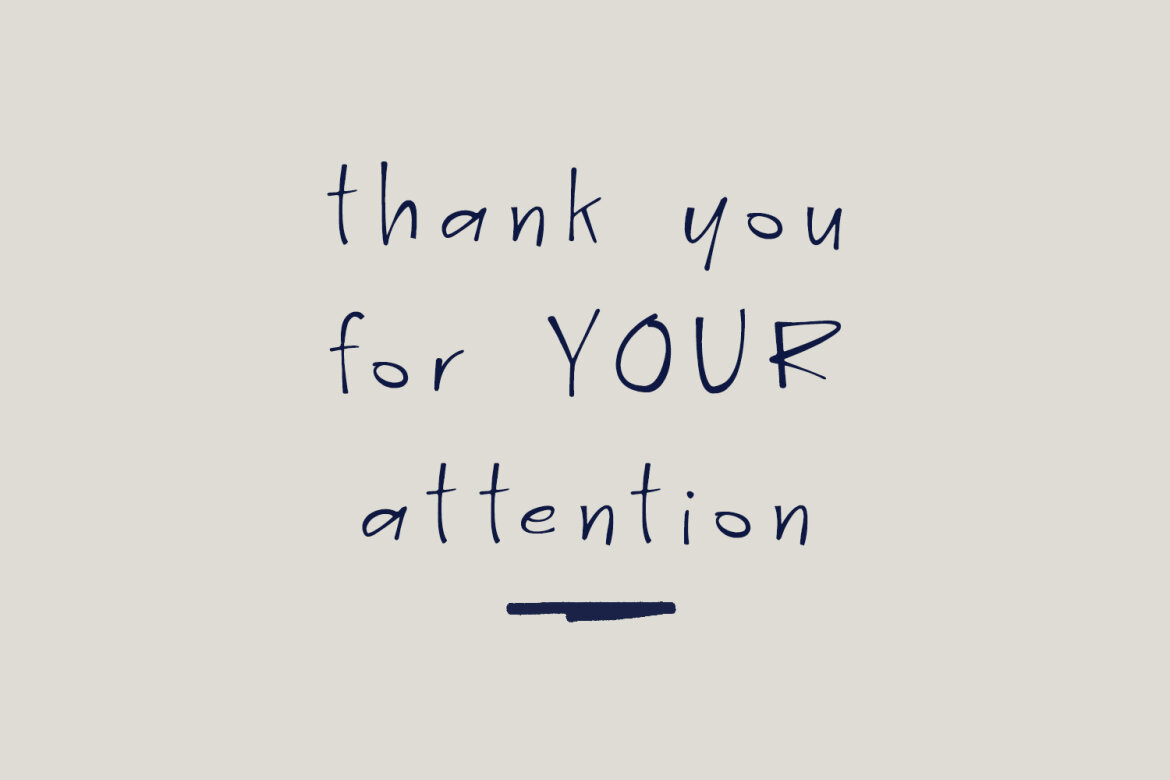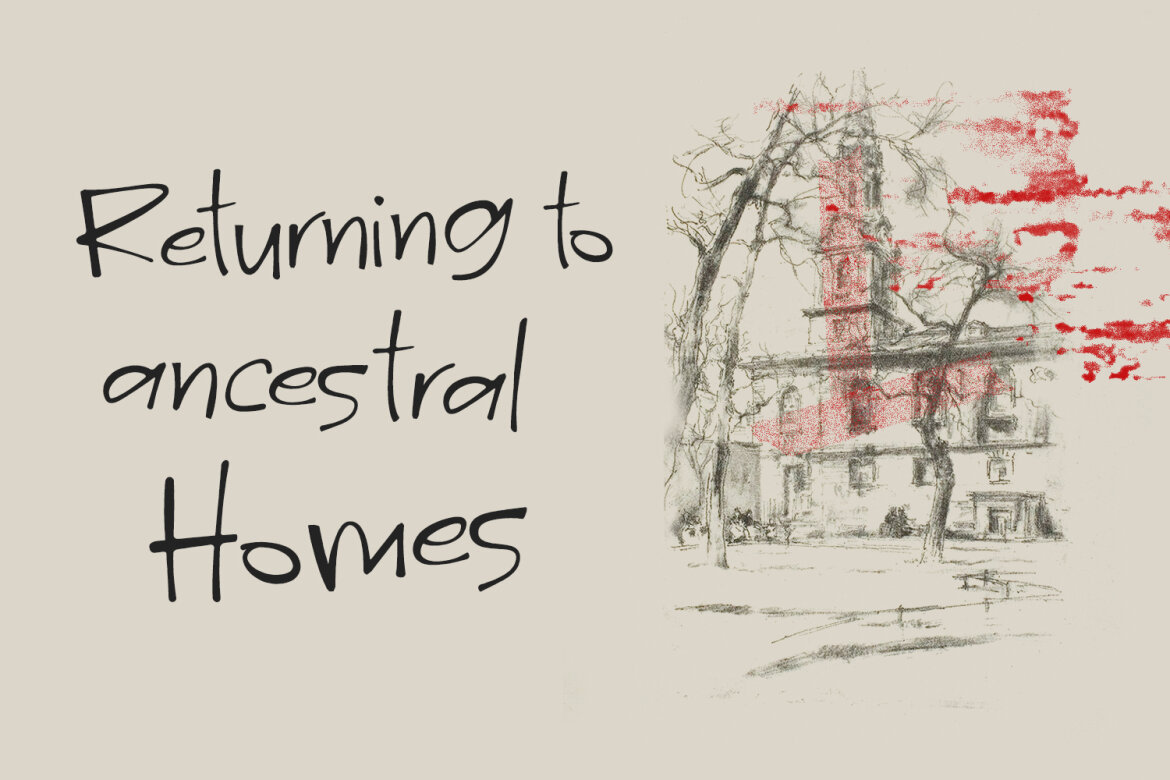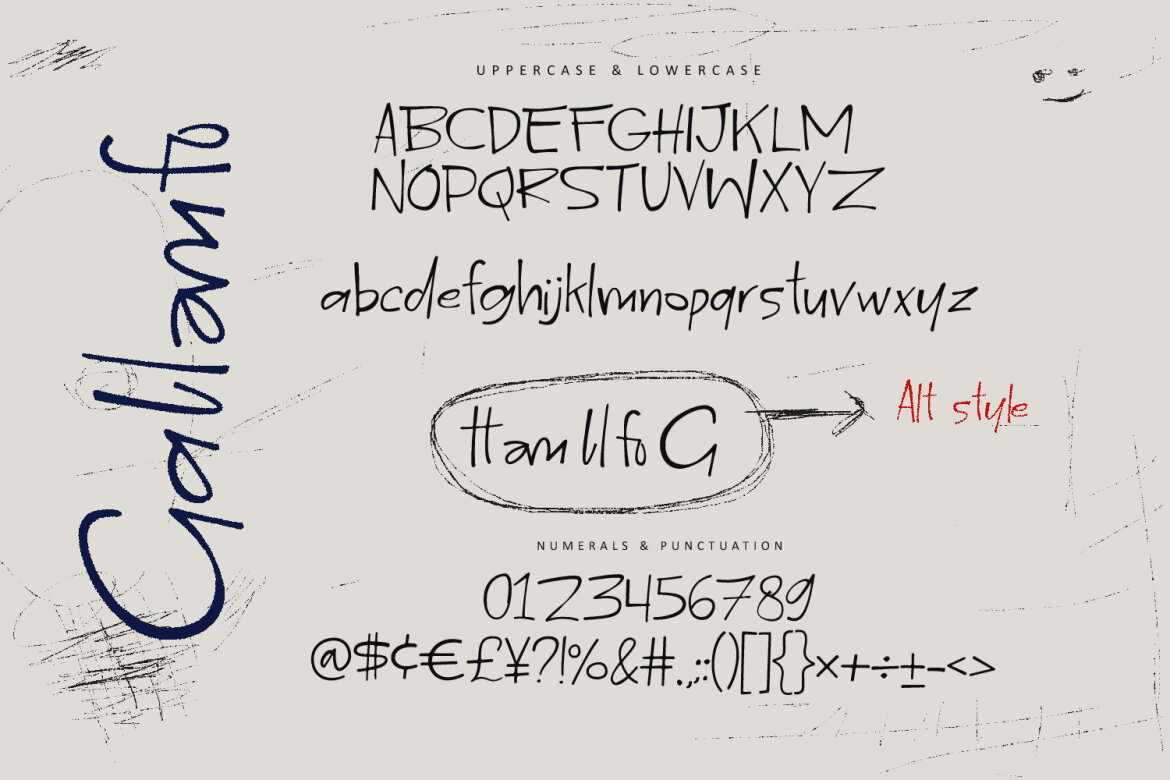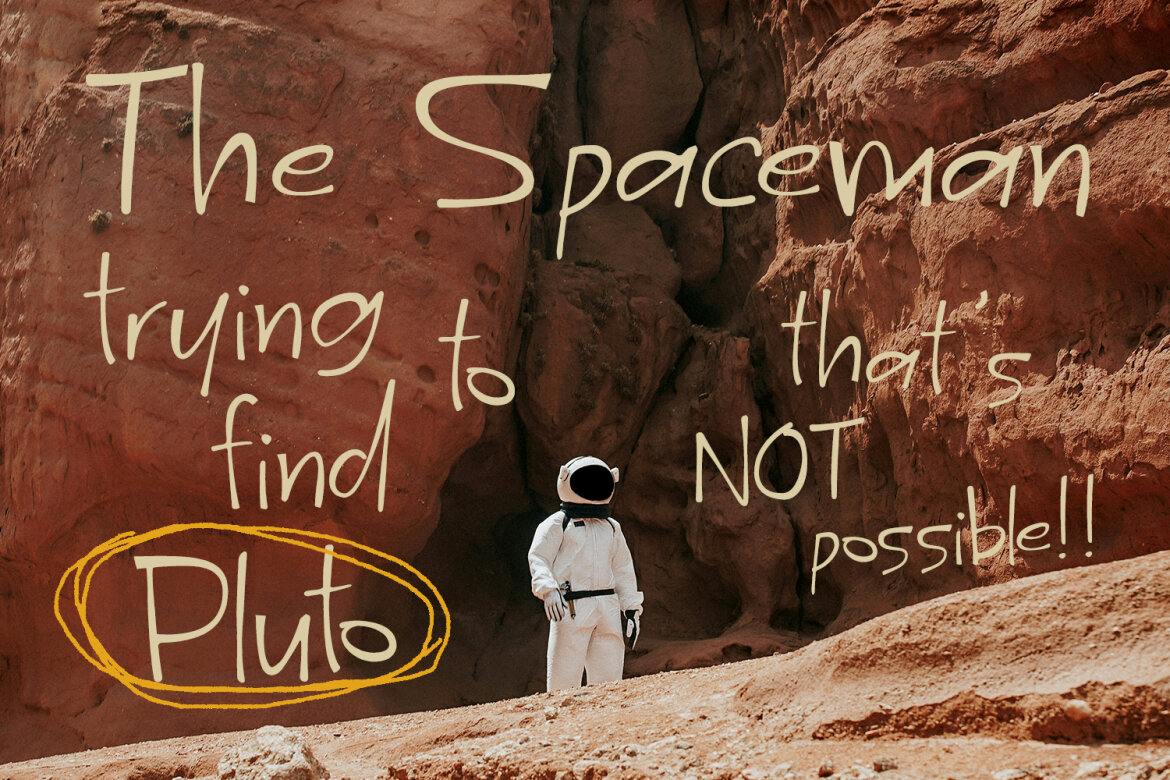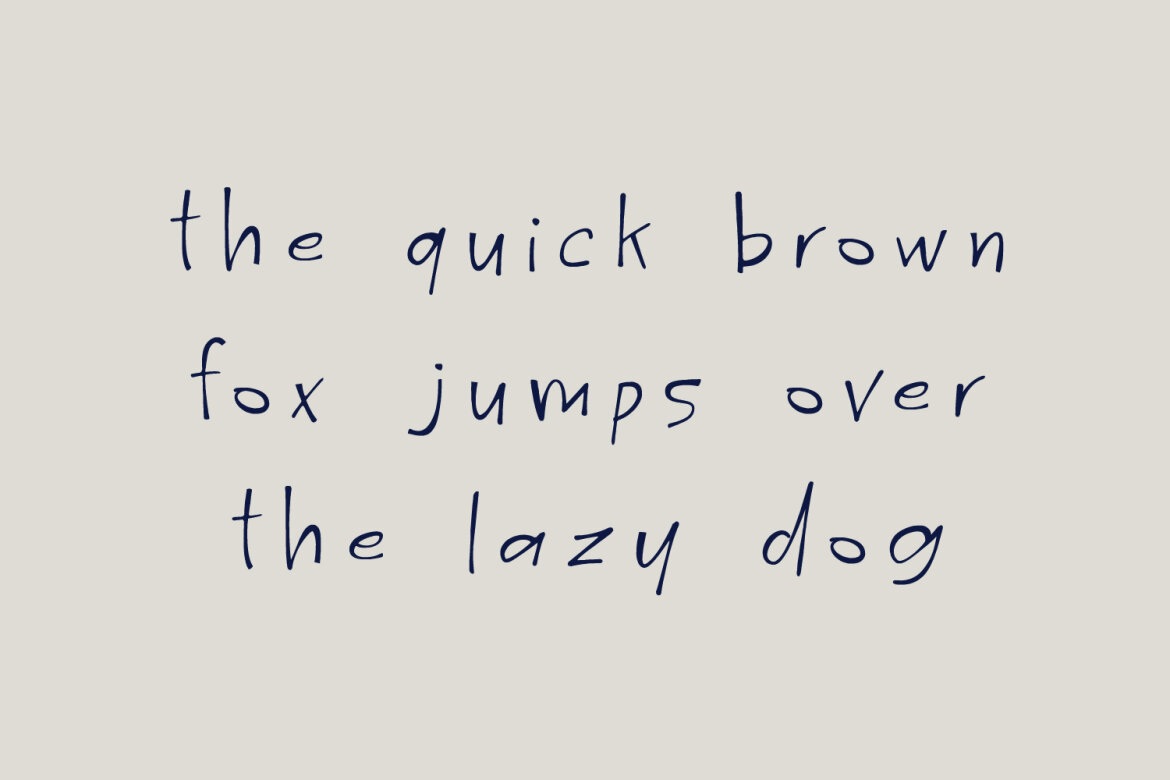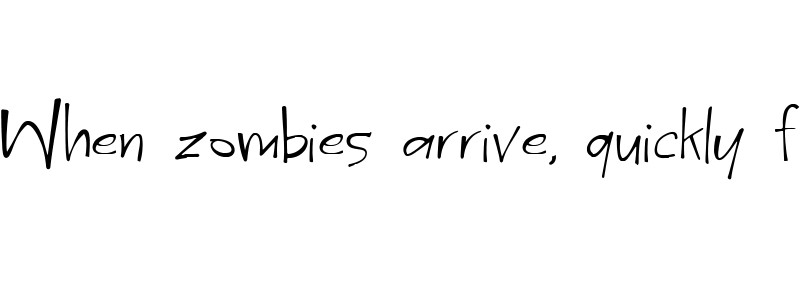
Gallamfo Handwritten FREE Font
Gallamfo
Give your designs an authentic handcrafted feel. “Gallamfo Handwritten Brush Font” is perfectly suited to stationery, logos and much more. Include alternative character and ligature characters.